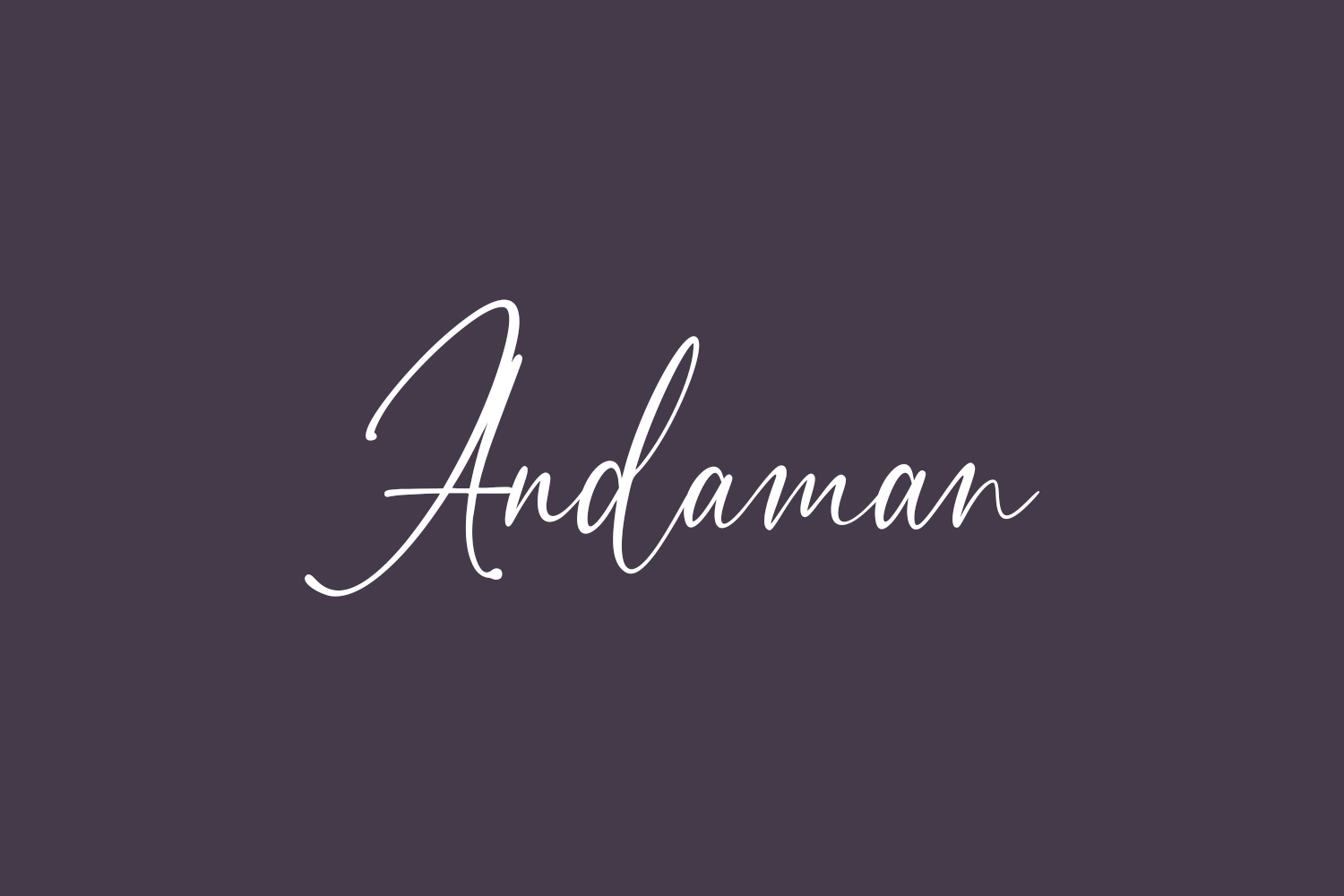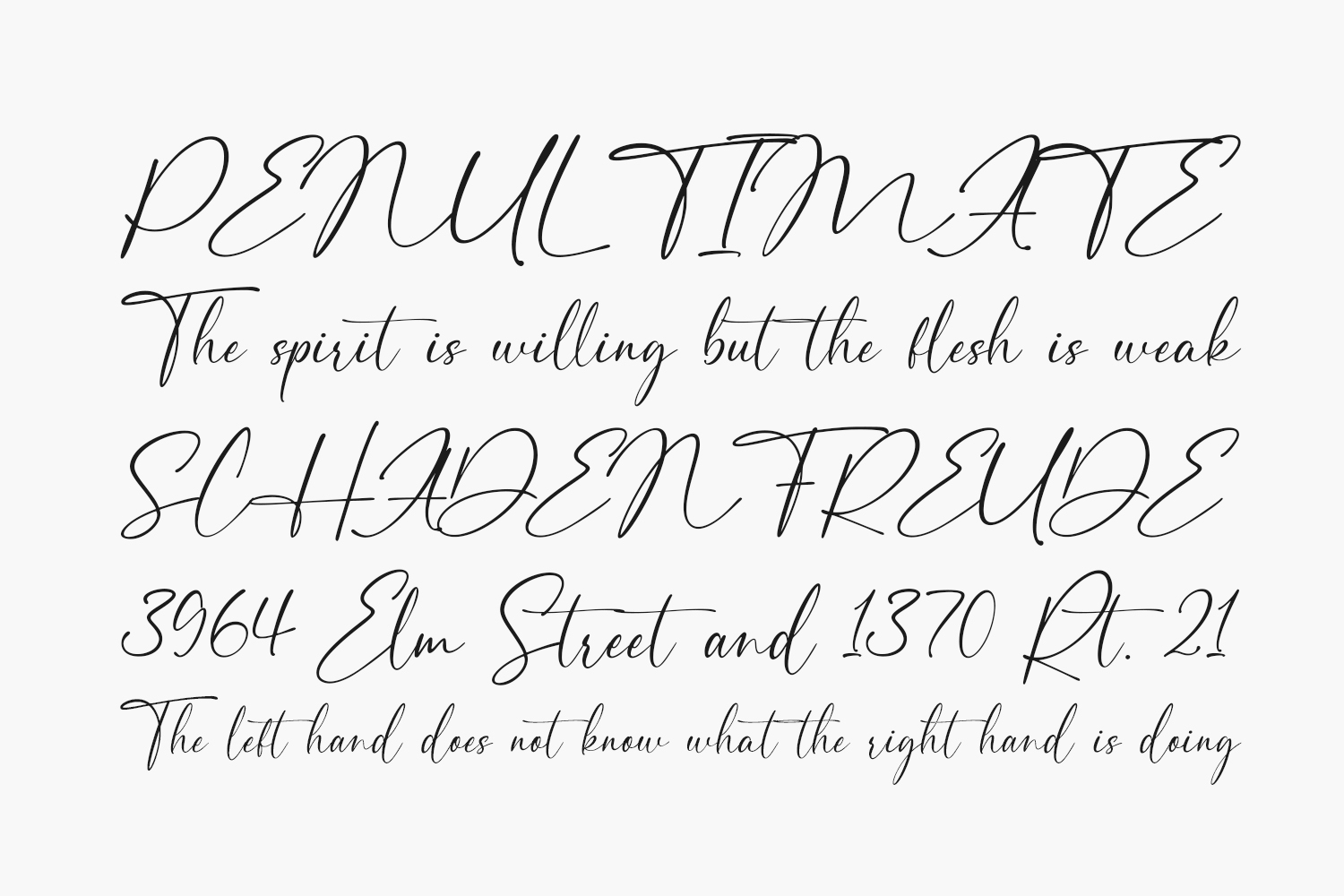
Introducing Andaman Free Font, an exquisitely designed modern calligraphy font, complete with ligatures and distinctive swashes. Ideal for elevating your branding, logos, fashion endeavors, posters, magazines, and beyond. Unleash creativity with this versatile typeface. Free Font is free for personal use only. Please purchase the full version for commercial use.
Designed by Pen Culture